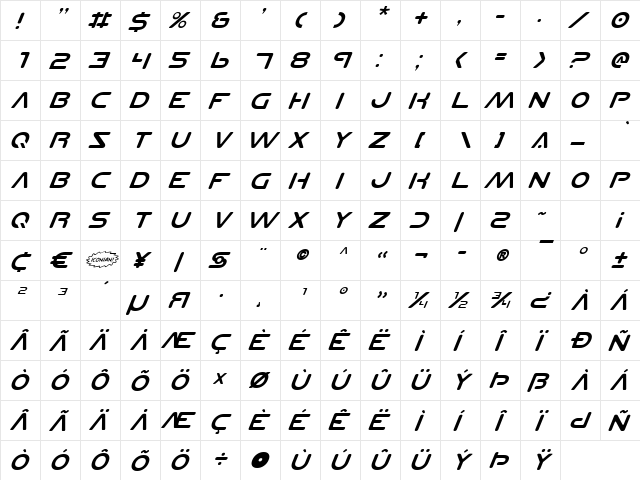
Planet NS Italic Italic
Design Context for Planet NS Italic Typeface
Planet NS Italic takes a measured approach to typography — its balanced proportions and neutral character make it a reliable workhorse for both digital and print work. The dynamic lean of this cut emphasises speed and emphasis in any layout.
Pro Tip: Use Planet NS Italic for emphasis, pull quotes, and subheadings where its slanted energy can add rhythm to the layout.